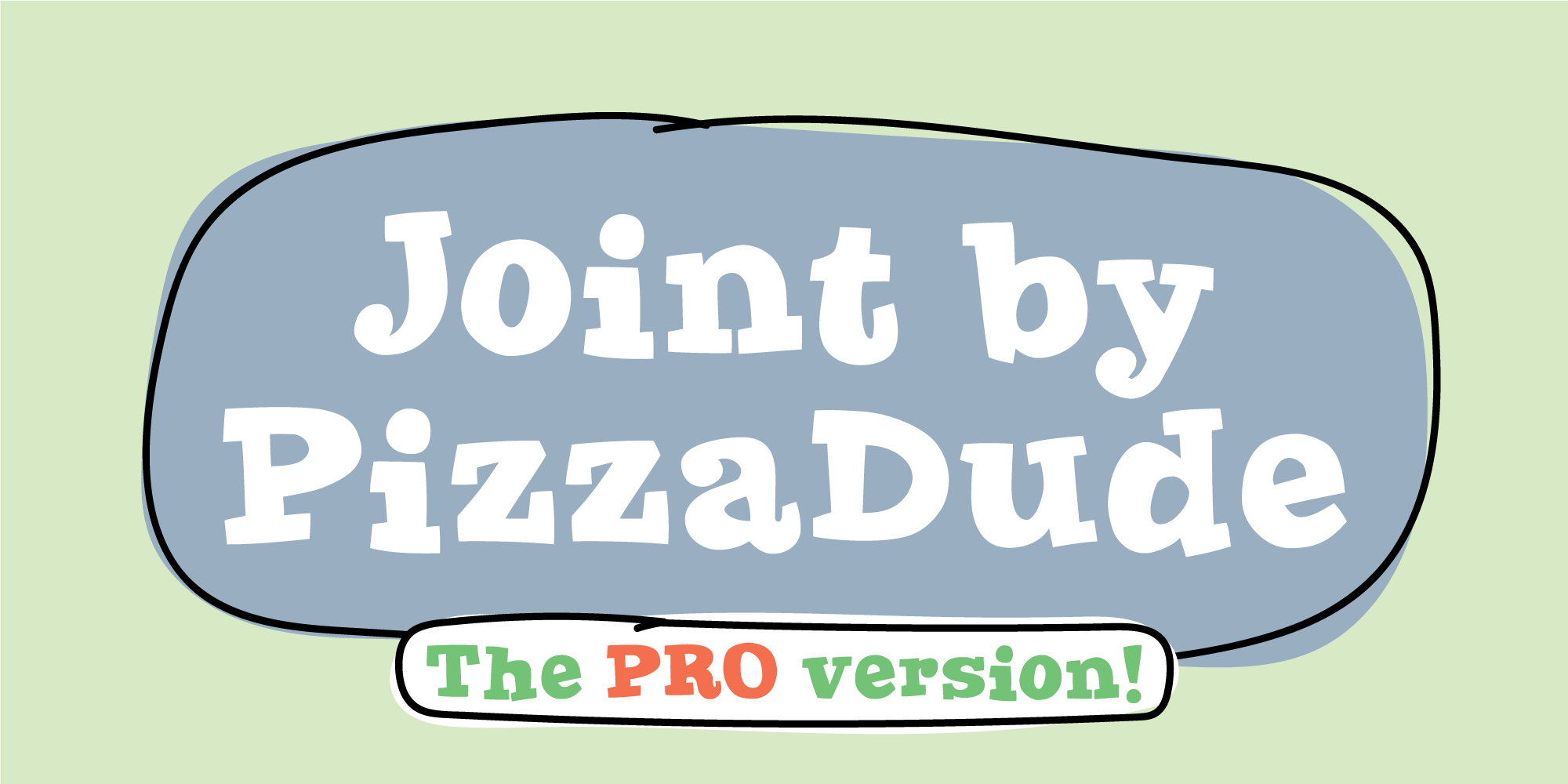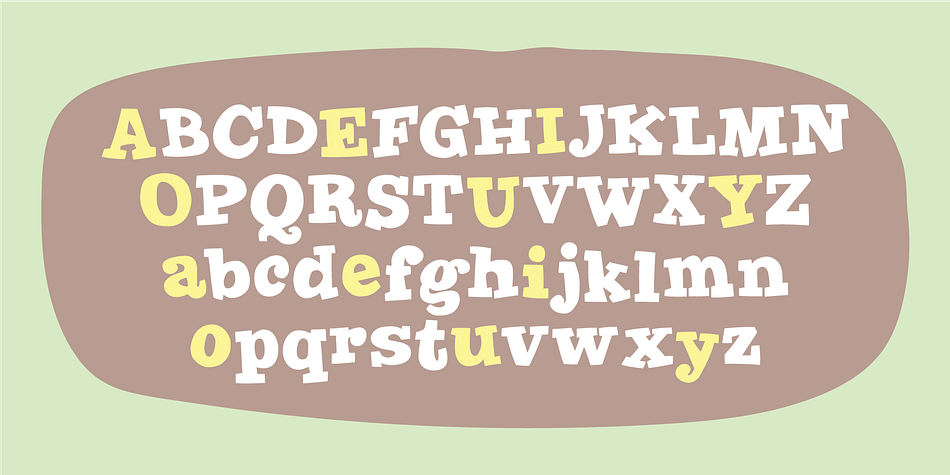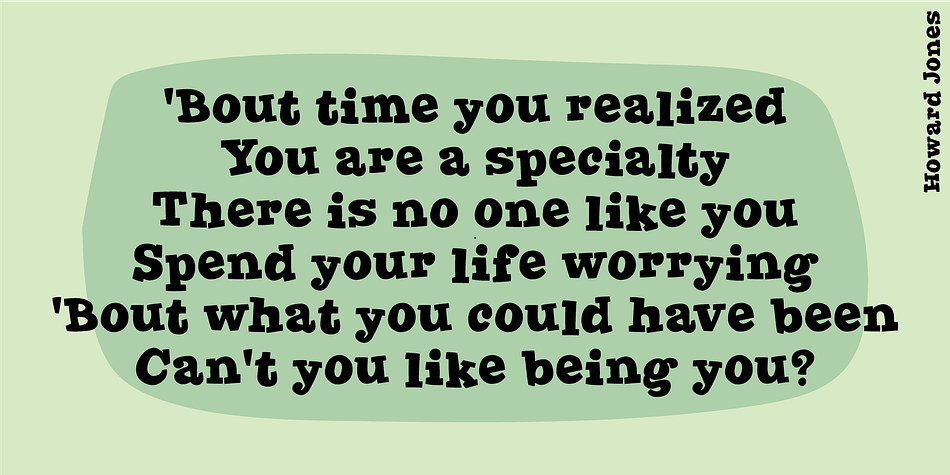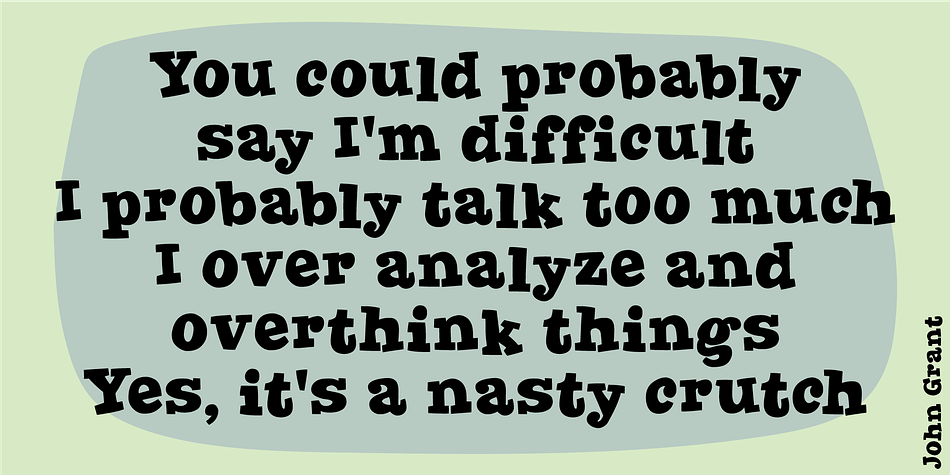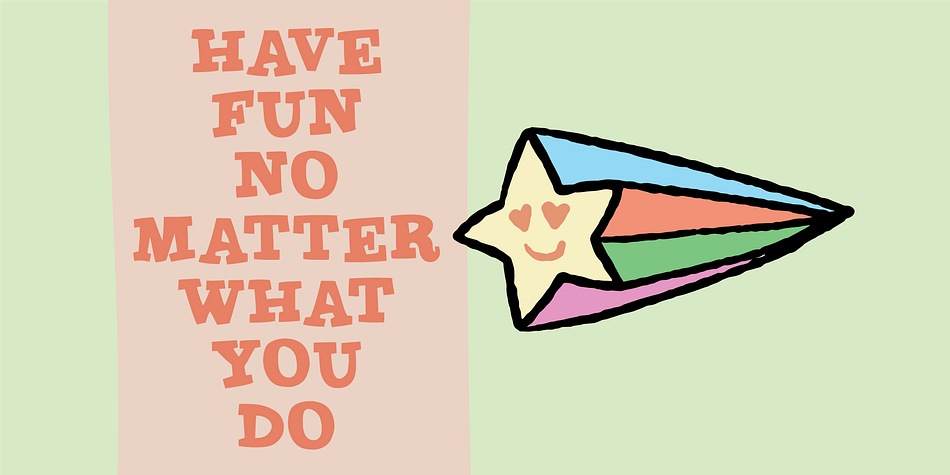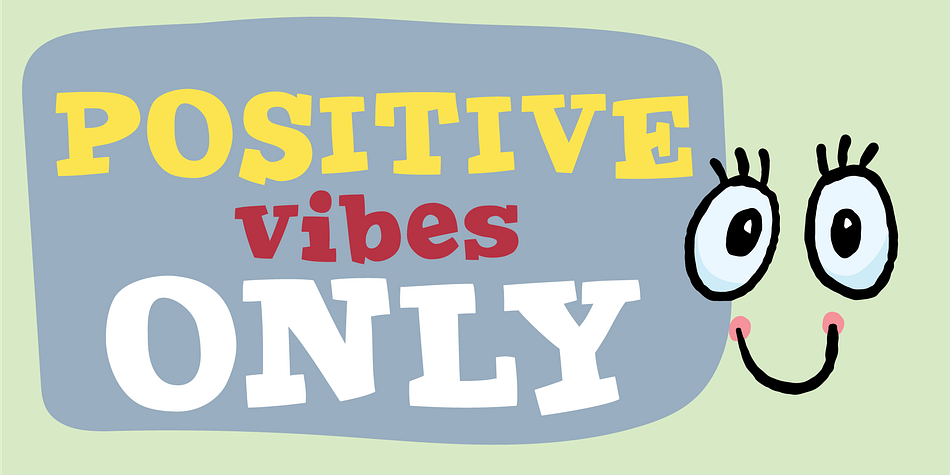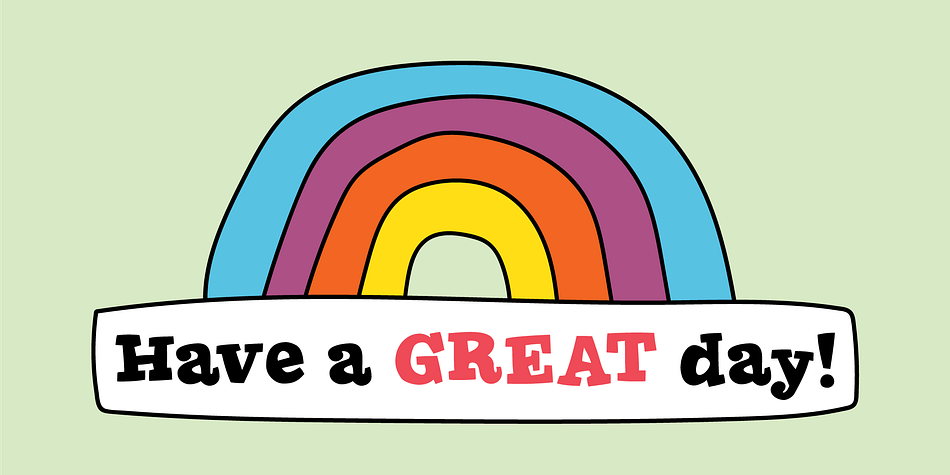
Joint
Designed by Jakob Fischer, Joint is a kids font family. This typeface has two styles and was published by Pizzadude.dk.
Wicked, cheeky and geeky!
That’s what went through my mind when updating this font. Originally made around year 2000, and now it comes in a restored and updated version.  I cleaned up all curves and lines, added multilingual support and kerning.
Based upon classic typefaces like Bodoni and Baskerville, but far more unpredictable and wild.